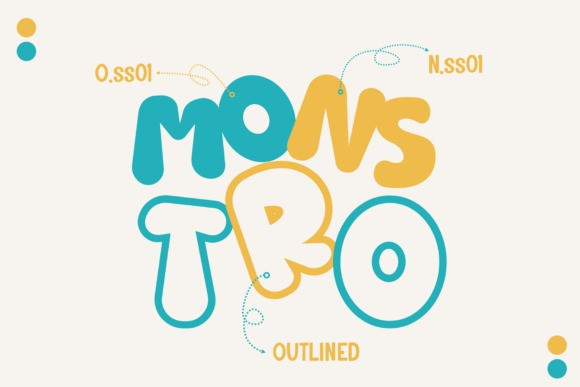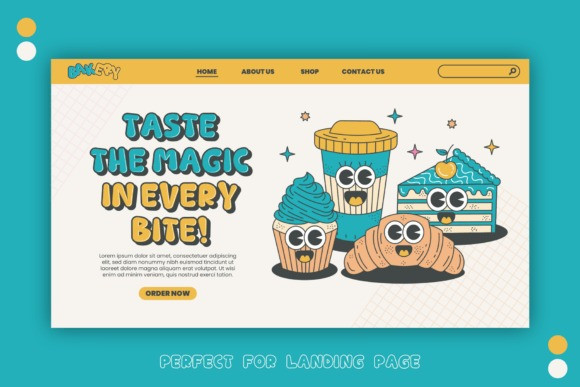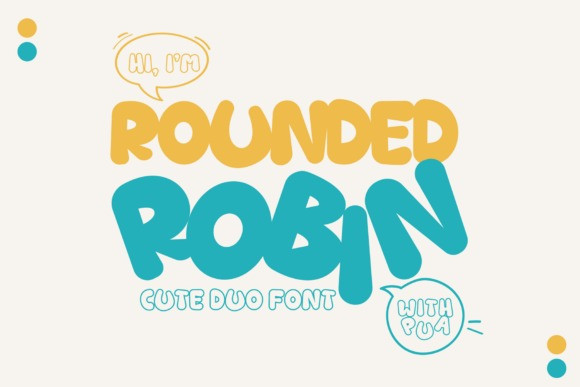
Rounded Robin Font
Rounded Robin Font a captivating and spirited display font, laden with warmth and an irresistible sprinkle of sweetness. This font, unique in its style, exhibits a duo of solid and outline options, opening the doors to a realm of varied design opportunities. Rounded Robin takes customization to another level with the inclusion of stylistic alternatives, allowing you to fashion designs that echo your personal touch. This font is an ideal match for projects that call for a kid-friendly, educational, infant-focused, or a feminine appeal. From designing tantalizing product packaging and adorable logos to crafting captivating book covers or building visually appealing landing pages, Rounded Robin promises to infuse a splash of delight and a hint of whimsy into your creations.